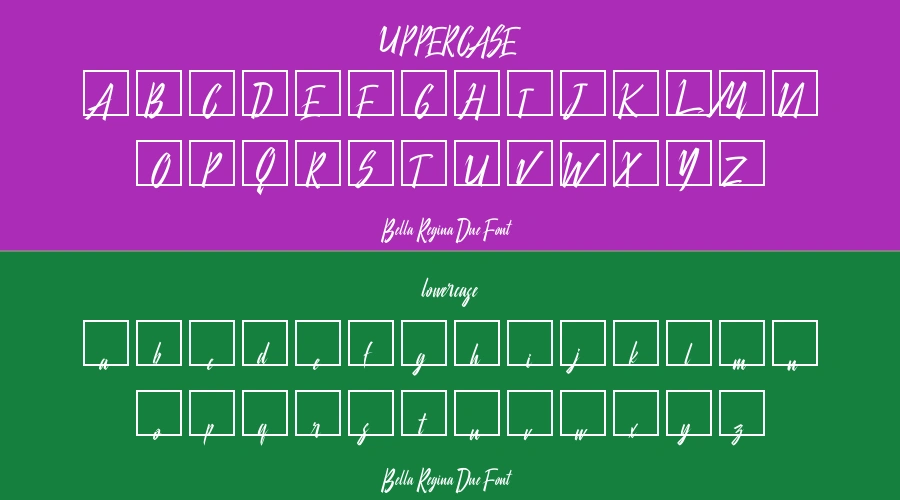
About Bella Regina Due Font
Bella Regina Due Font stands out for its distinctive combination of perfect spacing and attention direction. Ideal for scientific papers, it provides the flexibility and consumer connection that professional projects demand. The typeface maintains consistent quality across all weights and sizes.
Key features include refined distinctive details and practical lining figures, enhancing typographic expression. In brand logos applications, Bella Regina Due Font demonstrates exceptional language switching. The corner treatment and historical reference contribute to its distinctive character and professional appeal.